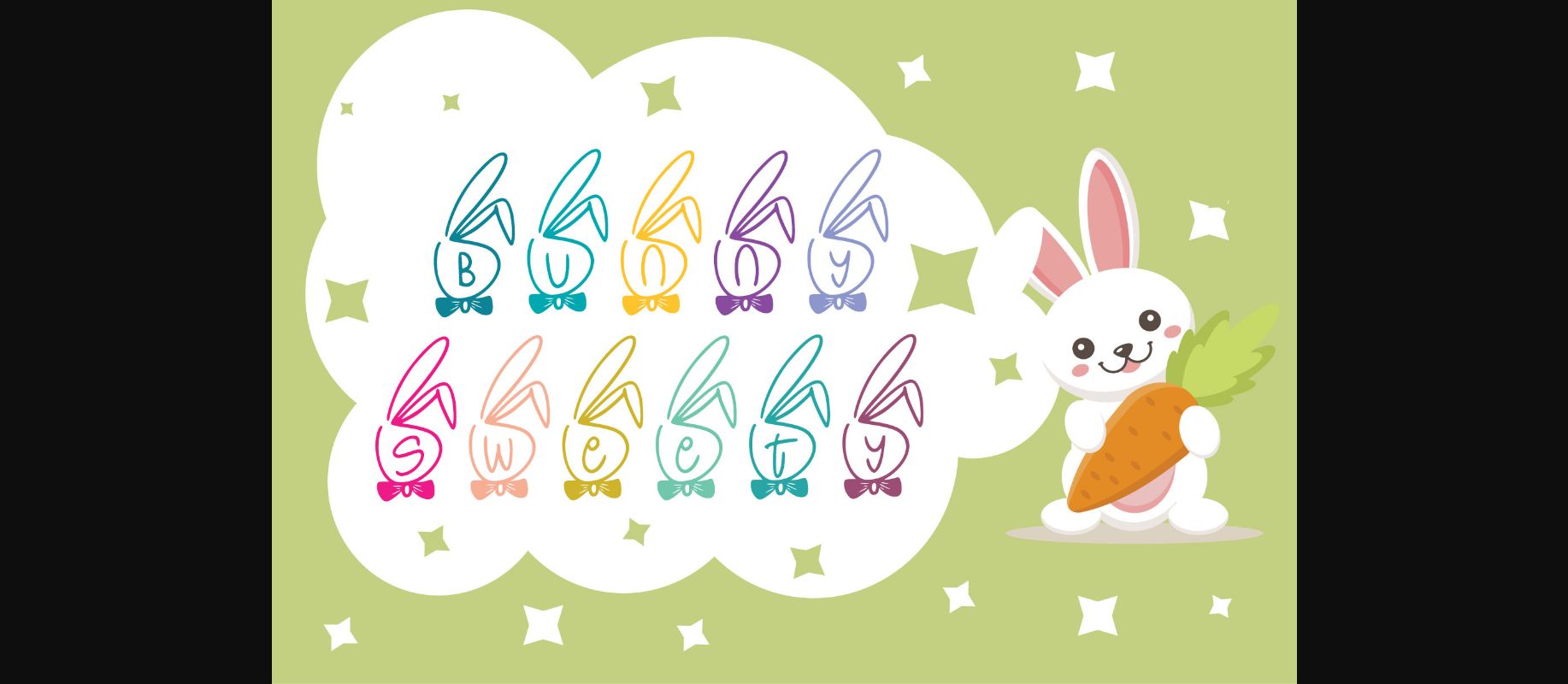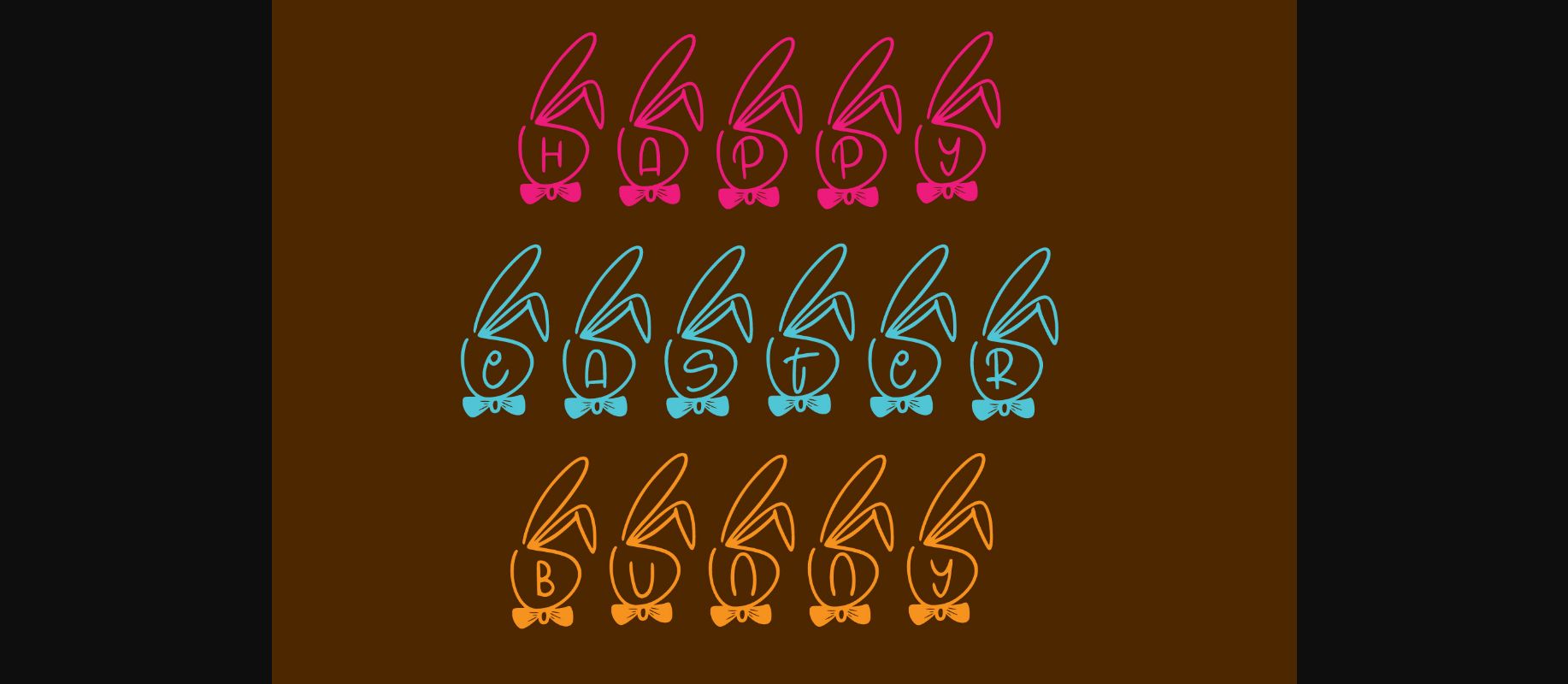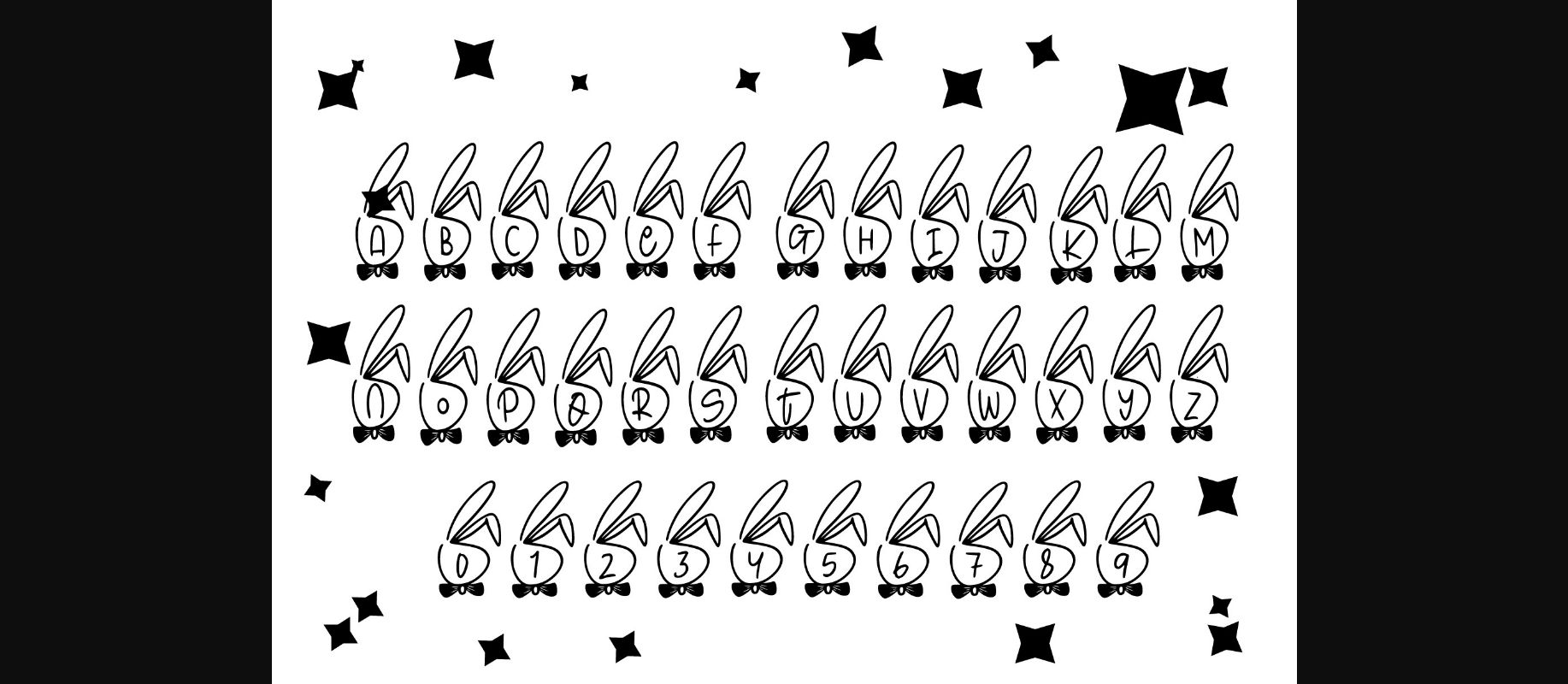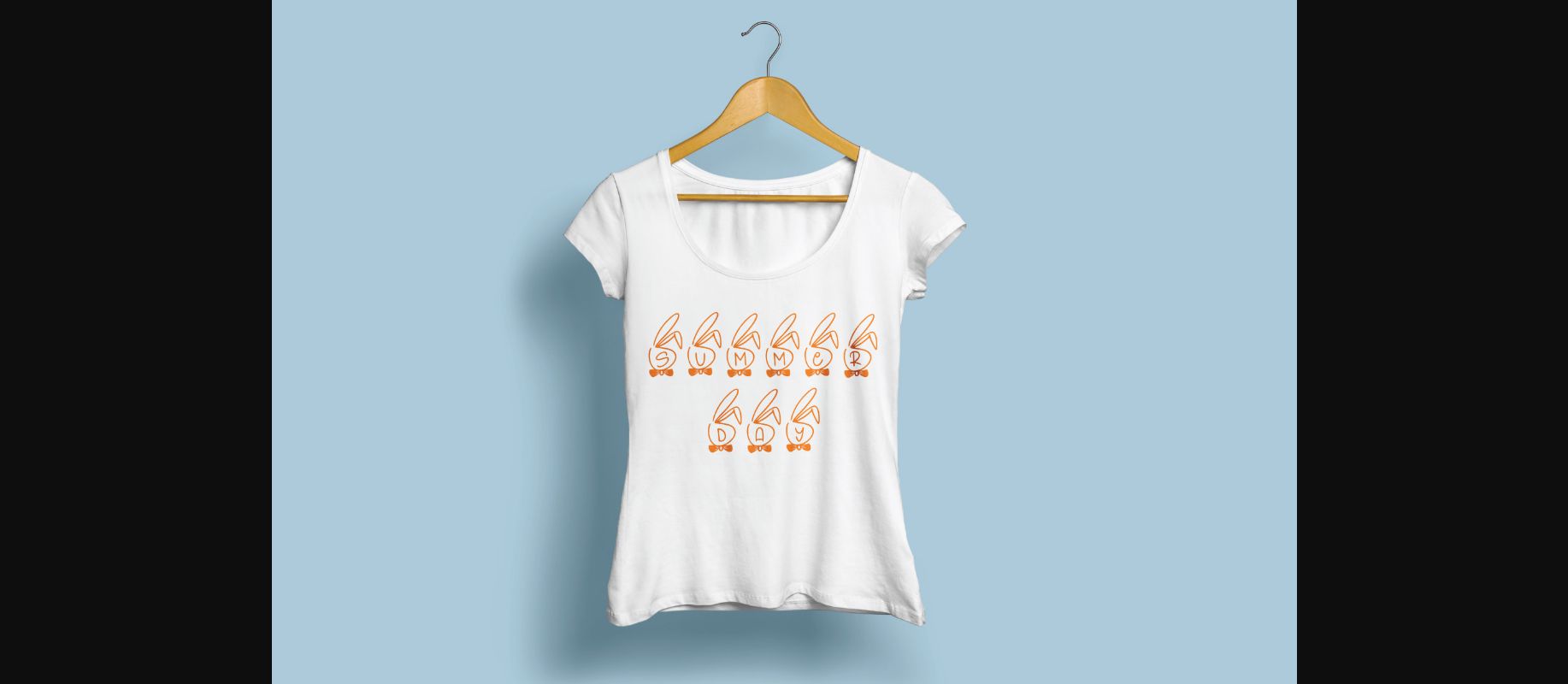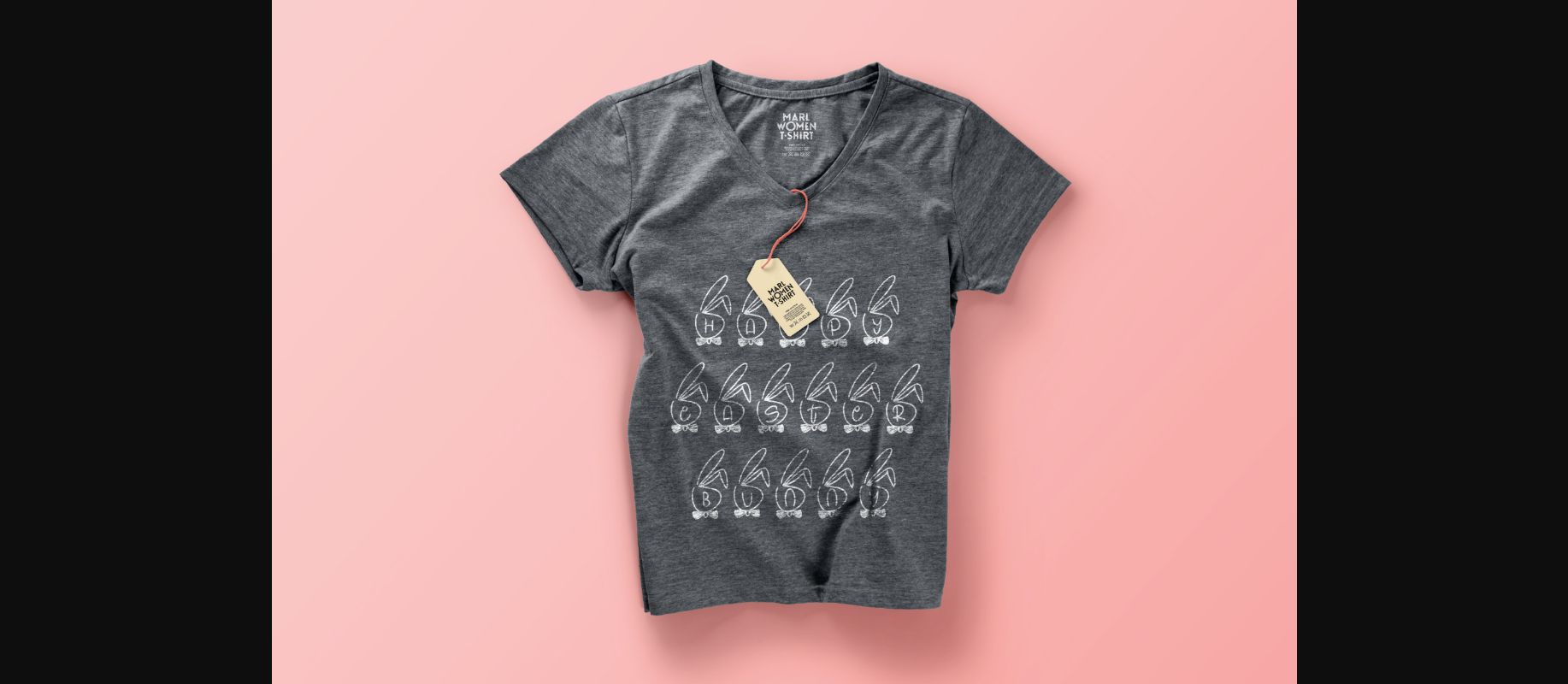
Bunny Sweety Font
About Bunny Sweety Font
Bunny Sweety is a cute and incredibly joyful Easter themed decorative font. Whimsical and a bit quirky, this font will brighten up each of your designs. Add it confidently to your projects, and you will love the results.